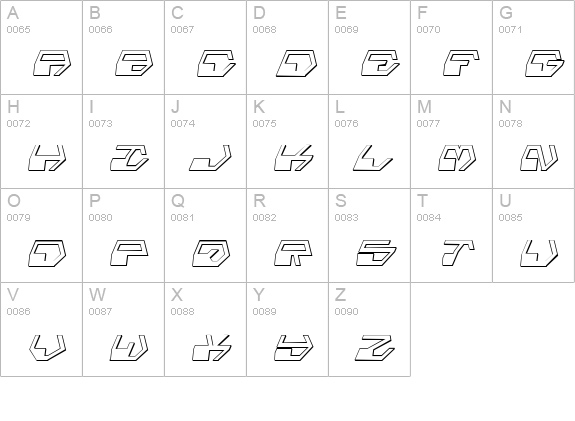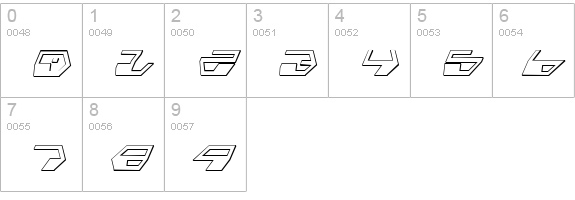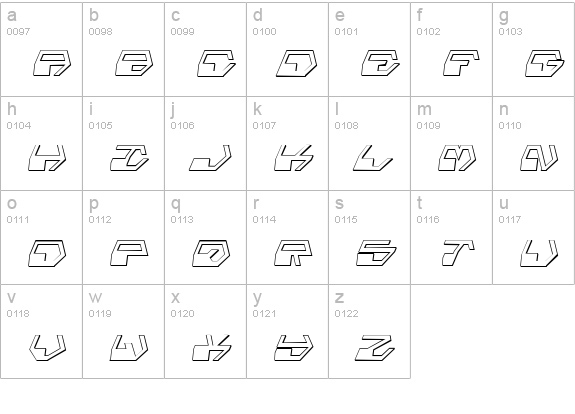
Deranian Shadow Italic is a distinctive, italic variant in the Deranian typeface family \xE2\x80\x94 well suited to design and typography projects.
Deranian Shadow Italic font is a unique and captivating typeface that radiates mystery and intrigue. Its elegant italic design features subtle shadow effects that add depth and dimension to each letter, making it perfect for projects that require a touch of drama and sophistication. Whether used for branding, titles, or creative designs, Deranian Shadow Italic font is sure to make a bold statement. The best part is that Deranian Shadow Italic font is available for free download at FontsMarket.com. So don't miss out on the opportunity to enhance your projects with this stunning and versatile typeface. Download it today and unleash your creativity with Deranian Shadow Italic font!